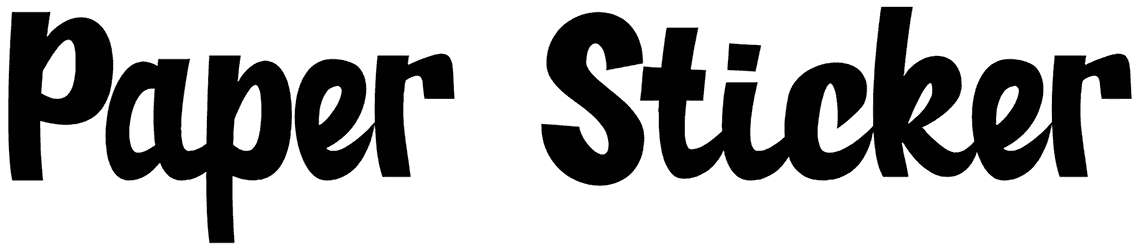
Paper Sticker Font
Paper Sticker can be the cornerstone that brings your design together and gives it a modern and contemporary look and feel. This script font has a clean and practical structure and is suitable for headlines, large-scale texts, and advertising content.
It is also a sticker font that adds a sense of personality to your brand and can become a bright spot in any design resume.